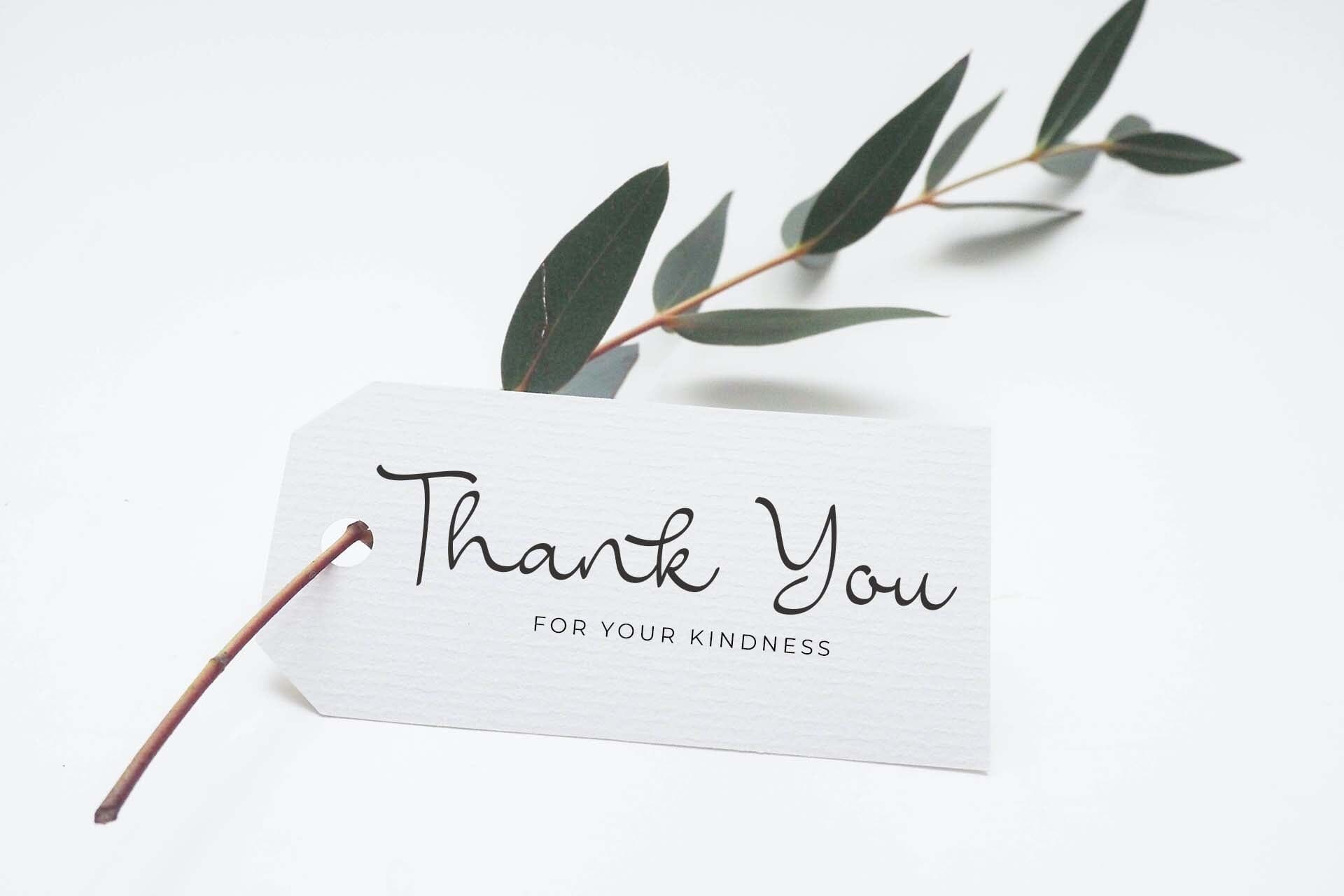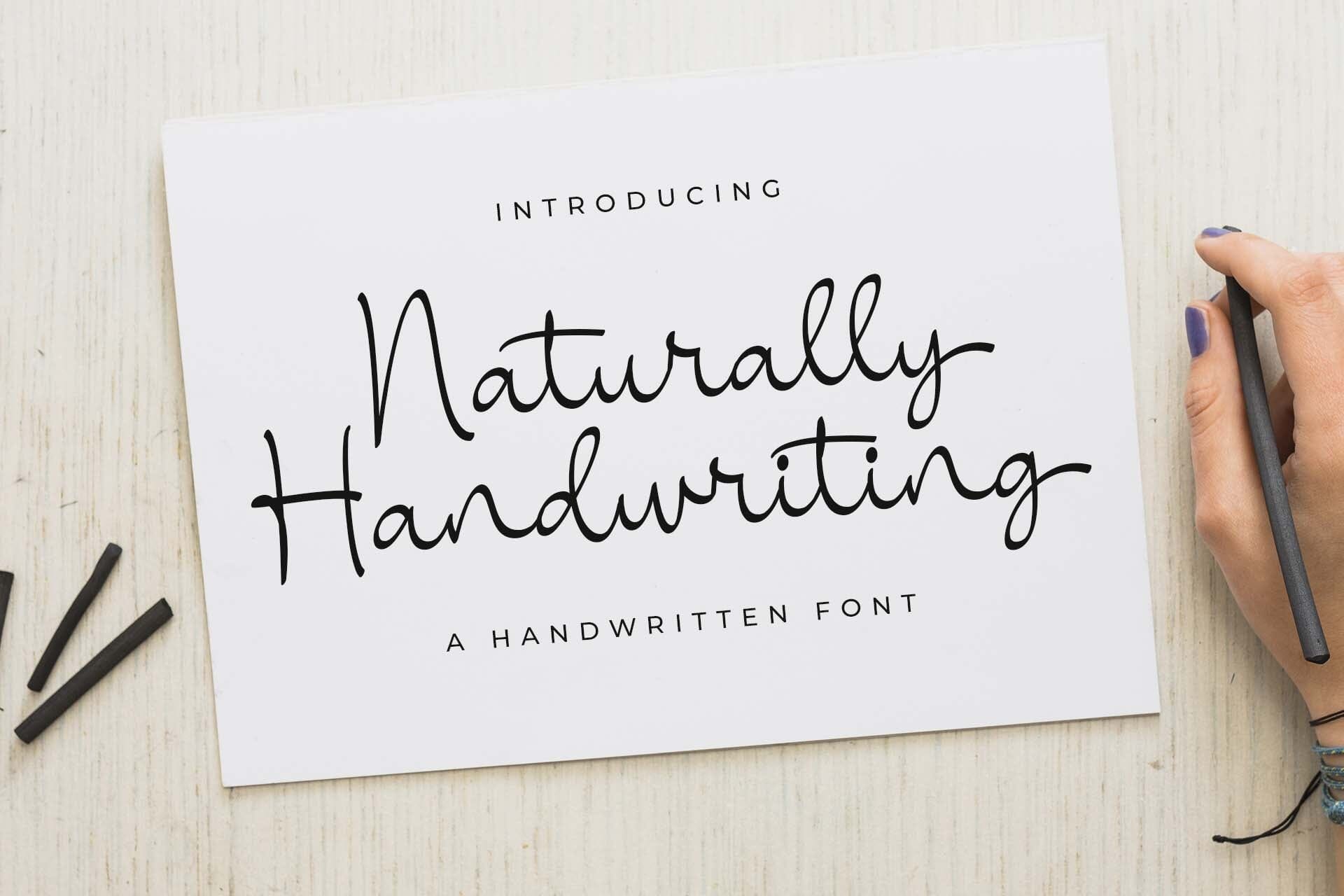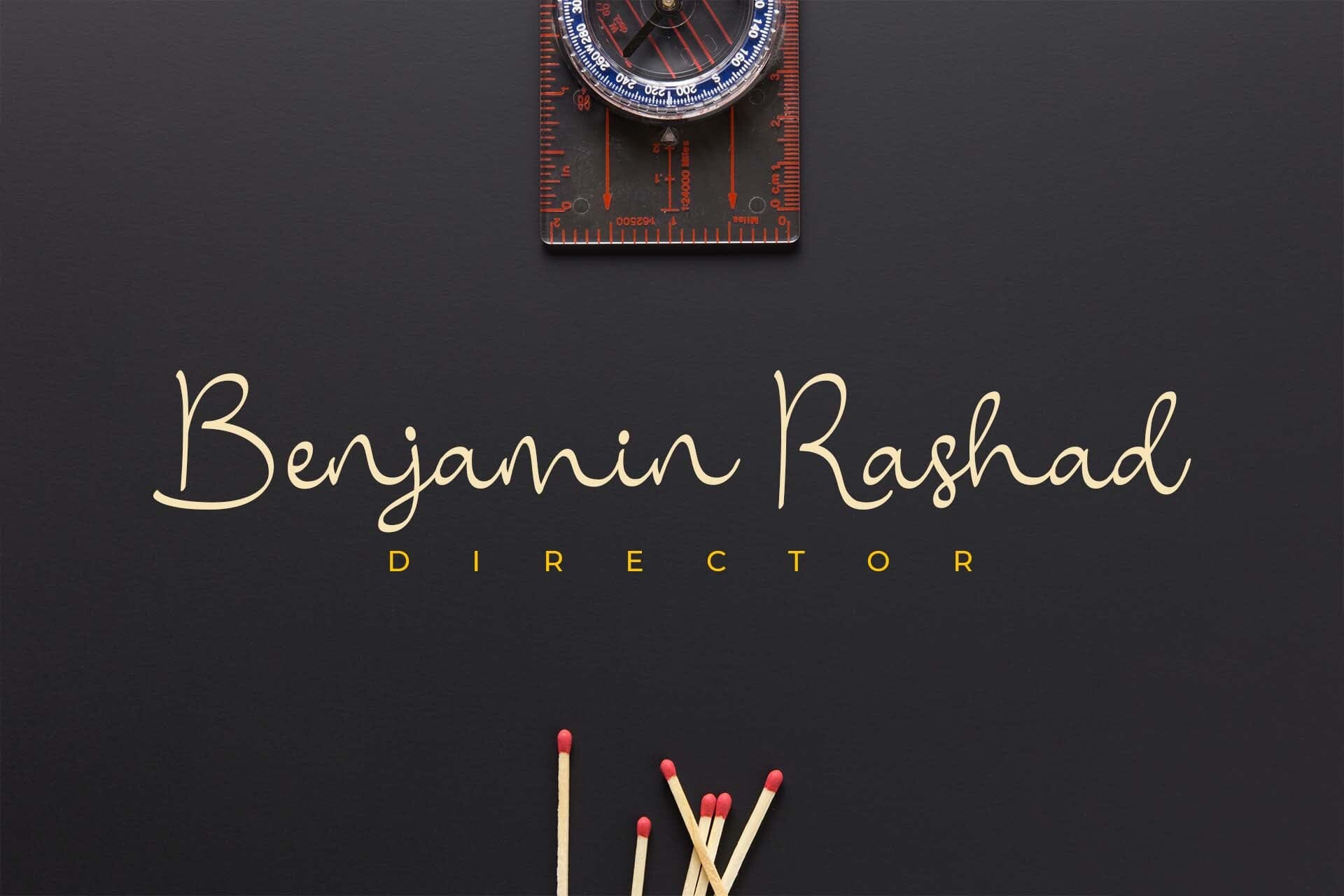
About Naturally Handwriting
Naturally Handwriting is a delicate and elegant script font with a modern and sophisticated appearance. Its thin letterforms feature fluid strokes and subtle curves, creating a graceful and refined feel. The font is perfect for designs that require a sense of elegance and sophistication, such as wedding invitations, branding, or editorial design.